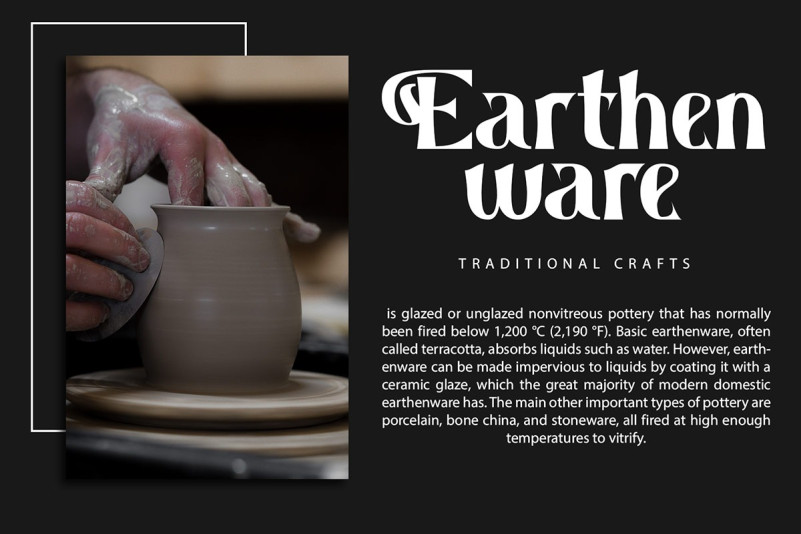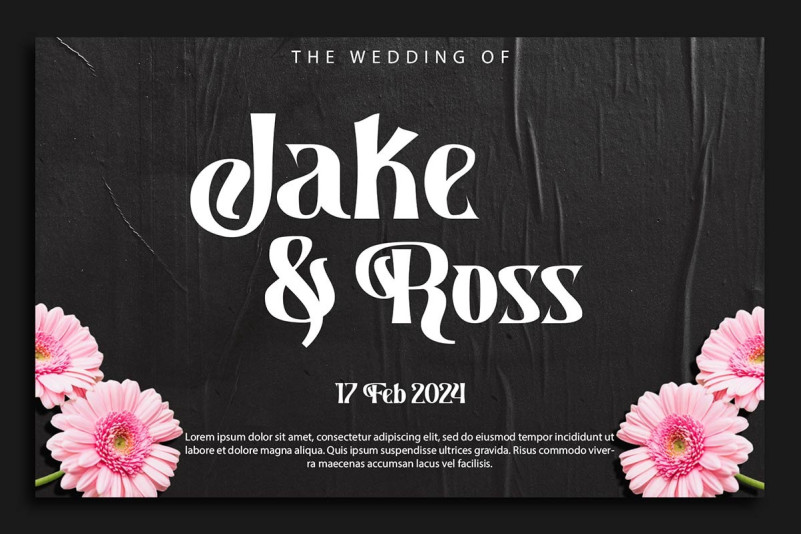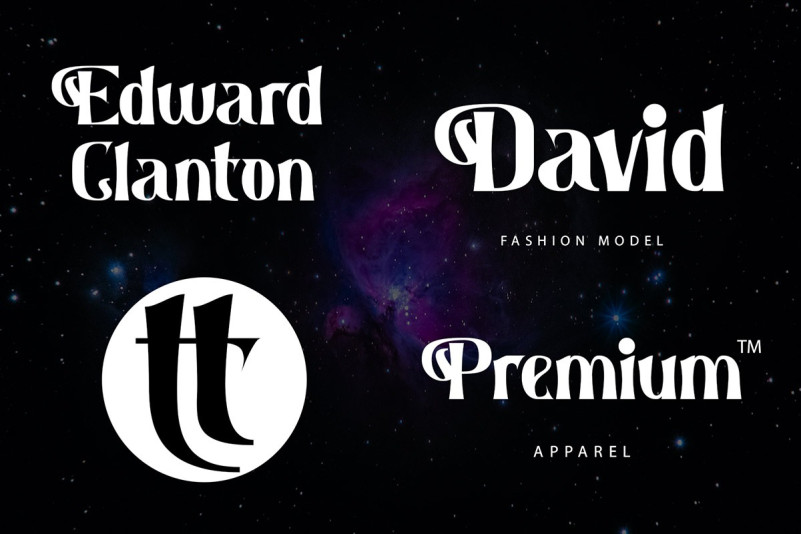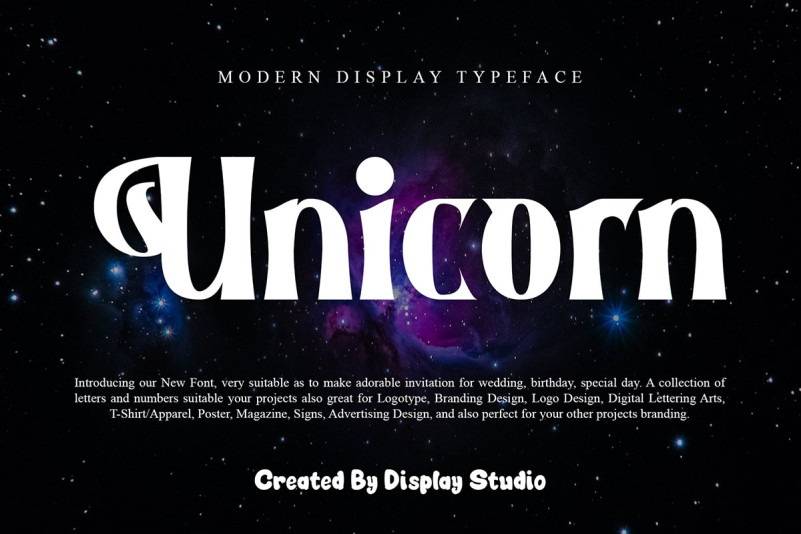
Unicorn Serif Font is a classic serif typeface inspired by stylish designs from the 80s to 90s. Unicorn Font is a great choice for beauty brands, magazines, retro designs, newspapers, books, brand names, branding, brands, quotes, album covers and other projects. Famous Cool fonts are here to take your designs to another level.
Unicorn